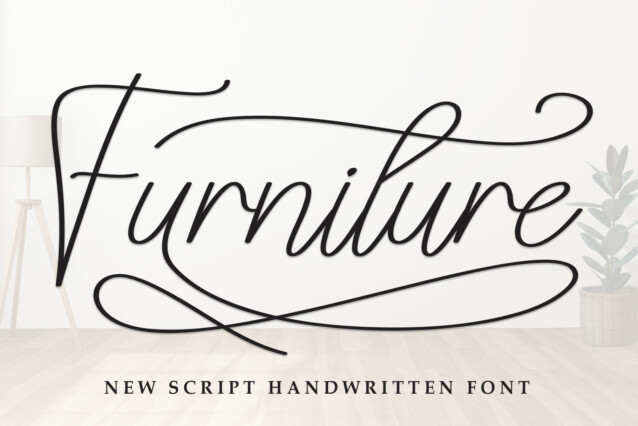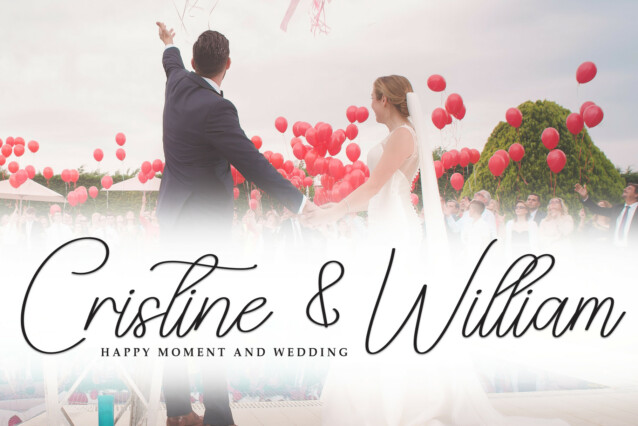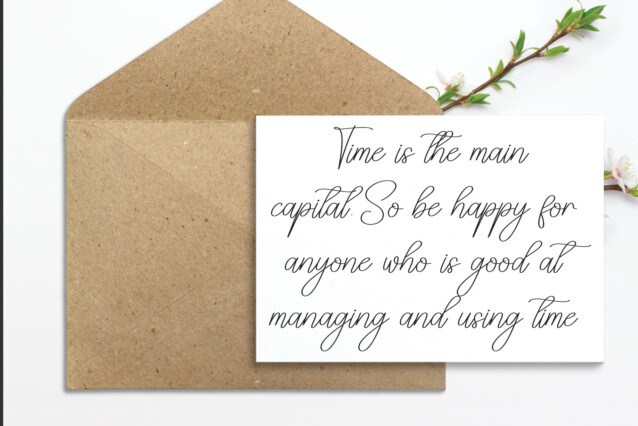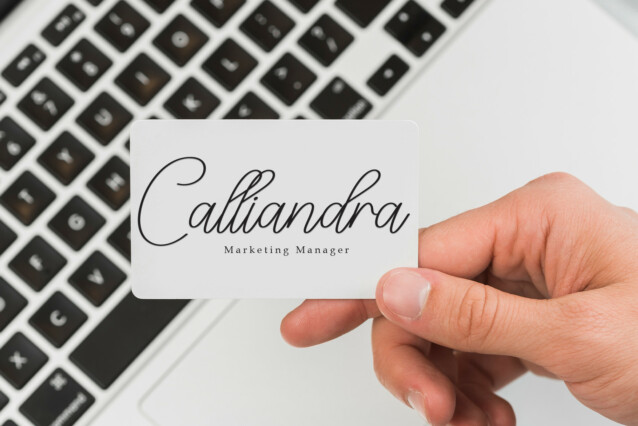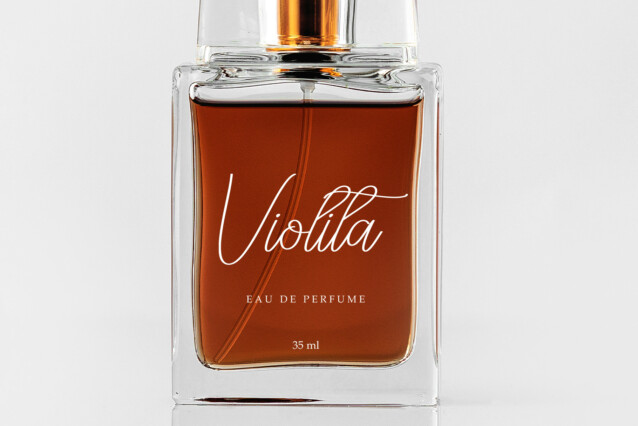
Furniture Script Font
Furniture Script Font is a beautiful and refined script font. It has a classy, elegant, and modern look that can be used for logos, branding, invitations, stationery, wedding designs, social media posts, and much more!